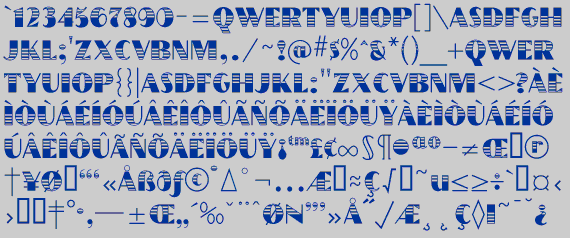
GrancMitStripes is a decorated version of Grandecort-Bold. It has stripes in the top part of the letters but not the bottom. The lower case of Grandecort-Bold has been replaced with a second set of upper-case letters, but this set has the stripes on the bottom rather than the top.